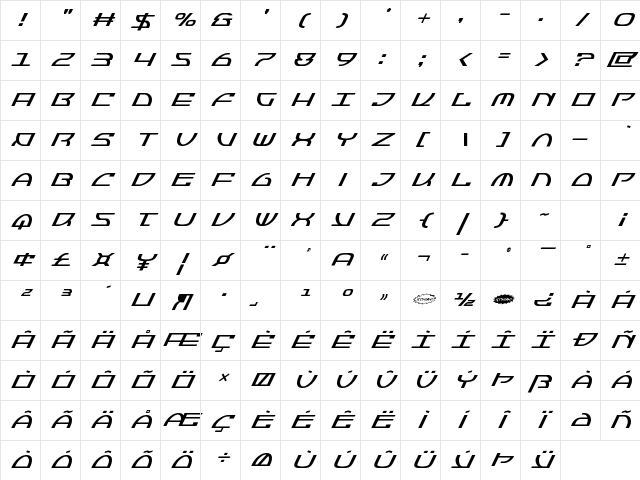
Jumptroops Super-Italic Italic
Design Context for Jumptroops Super-Italic
Jumptroops Super-Italic is a composed and adaptable typeface that performs quietly and consistently across a wide range of design contexts. The slanted form adds forward momentum and visual energy.
Pro Tip: Use Jumptroops Super-Italic for emphasis, pull quotes, and subheadings where its slanted energy can add rhythm to the layout.